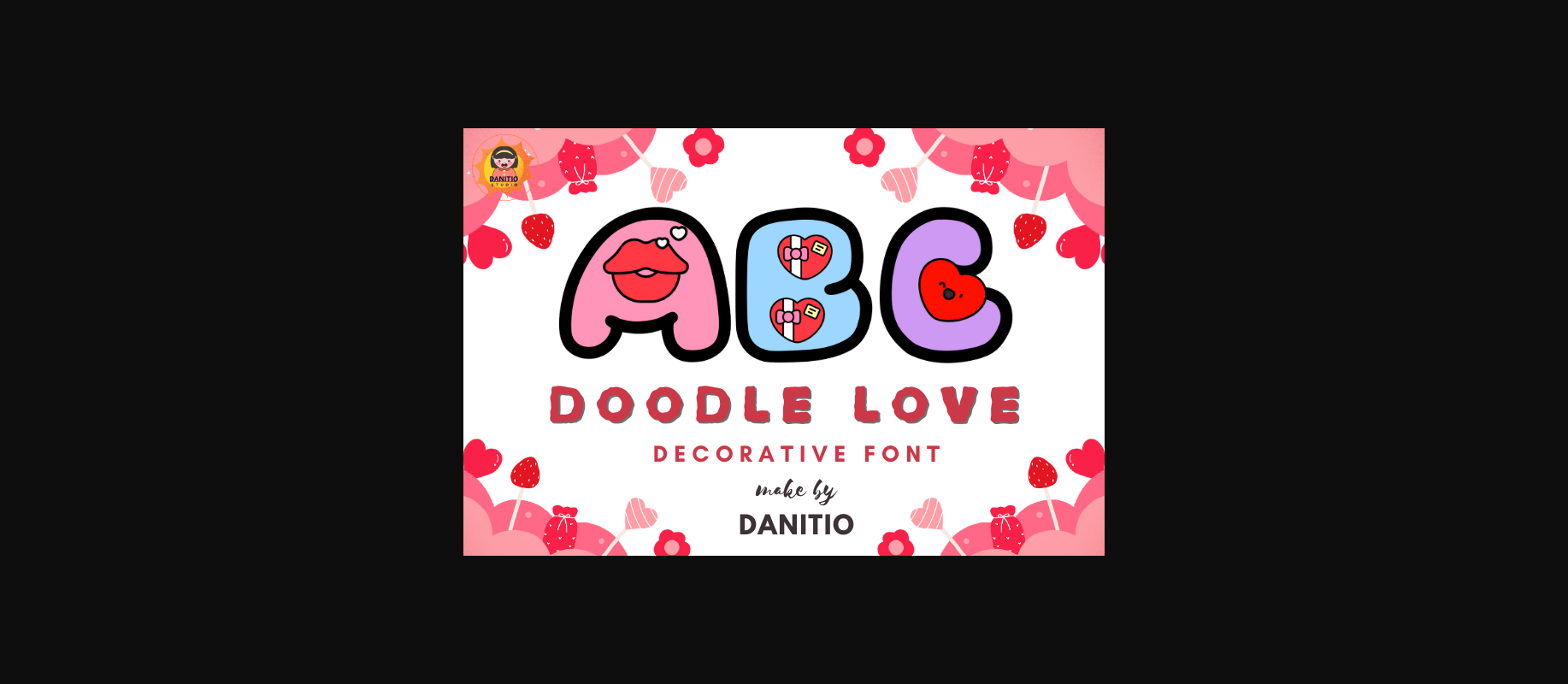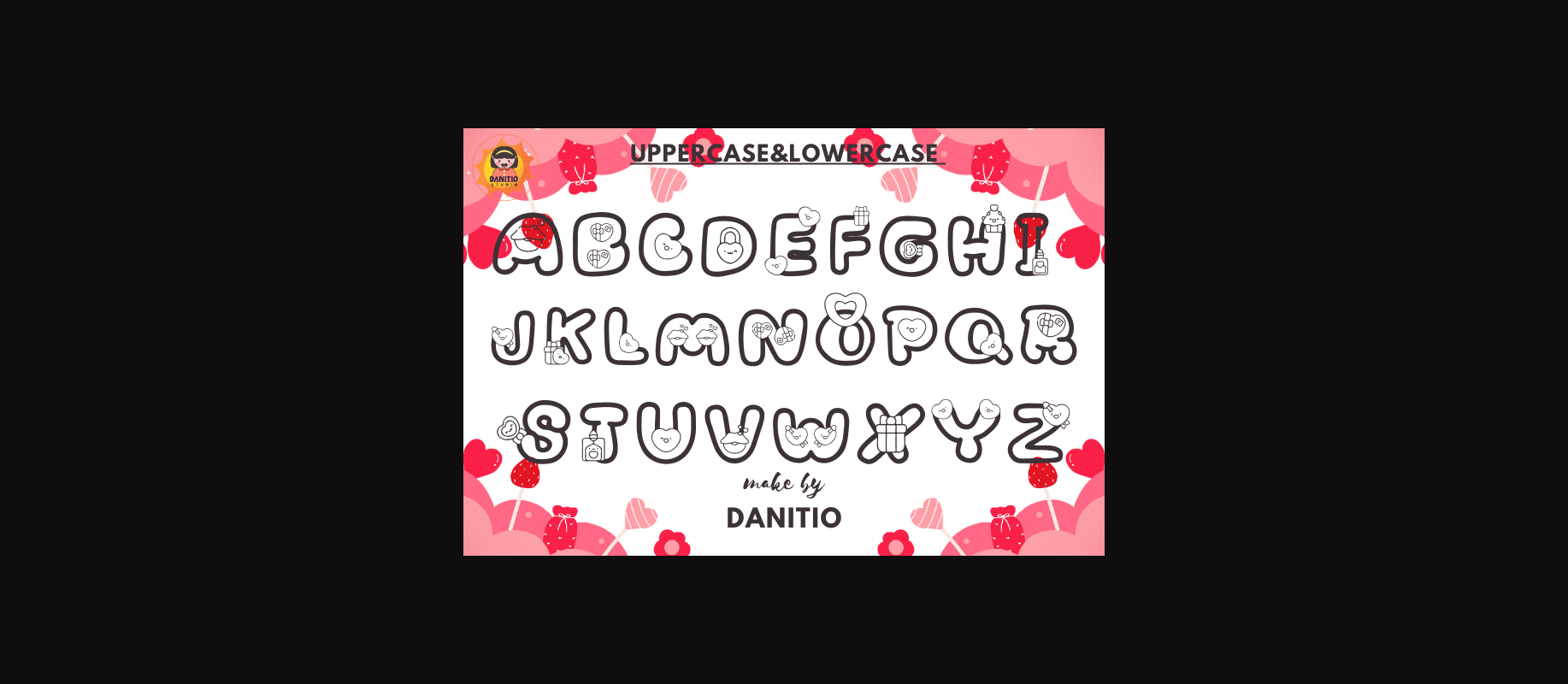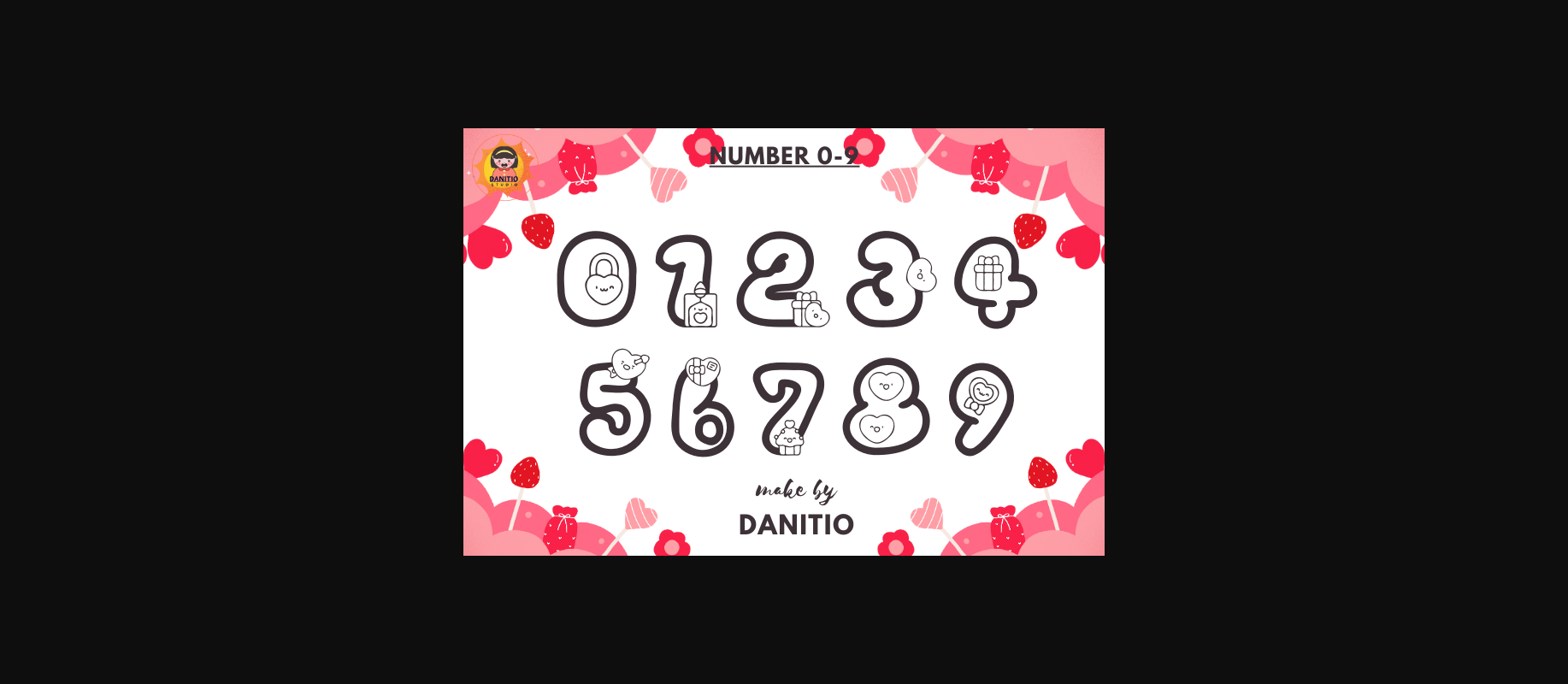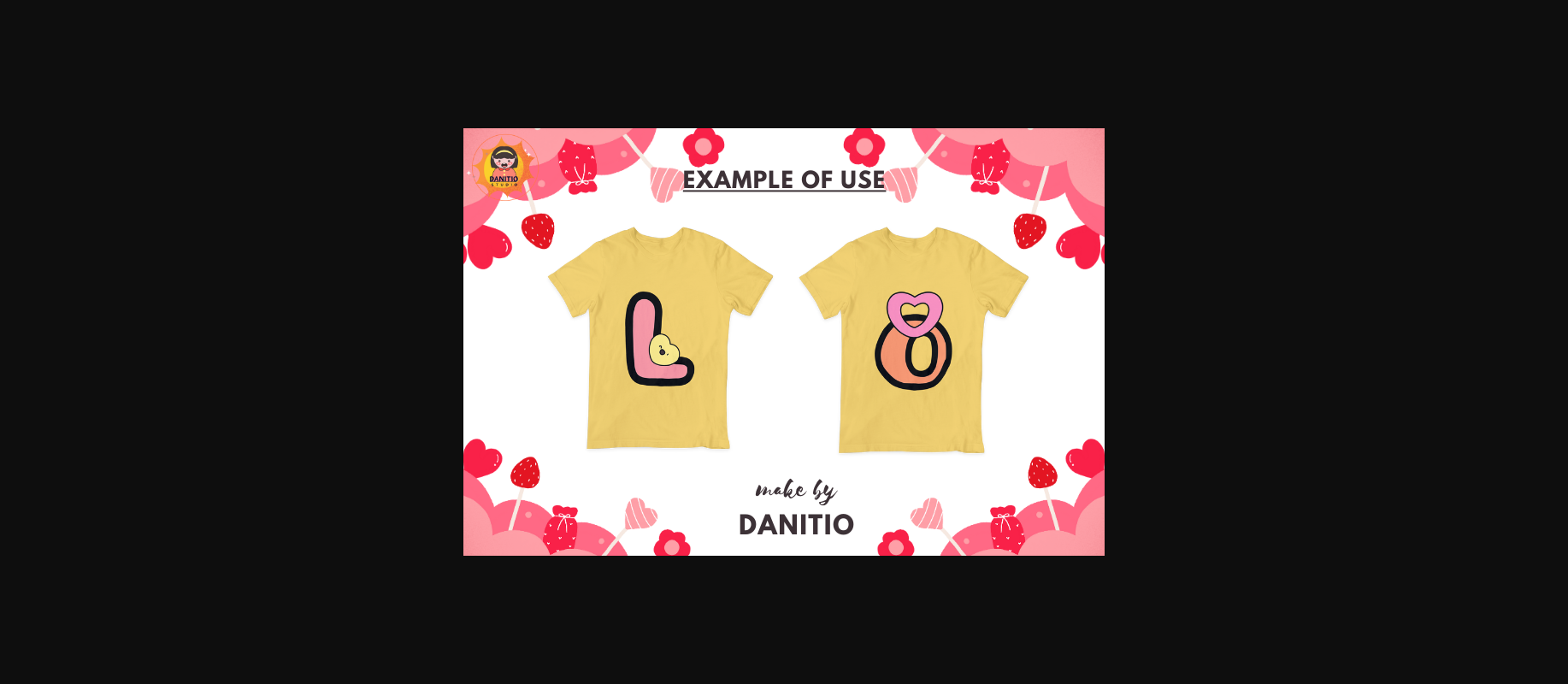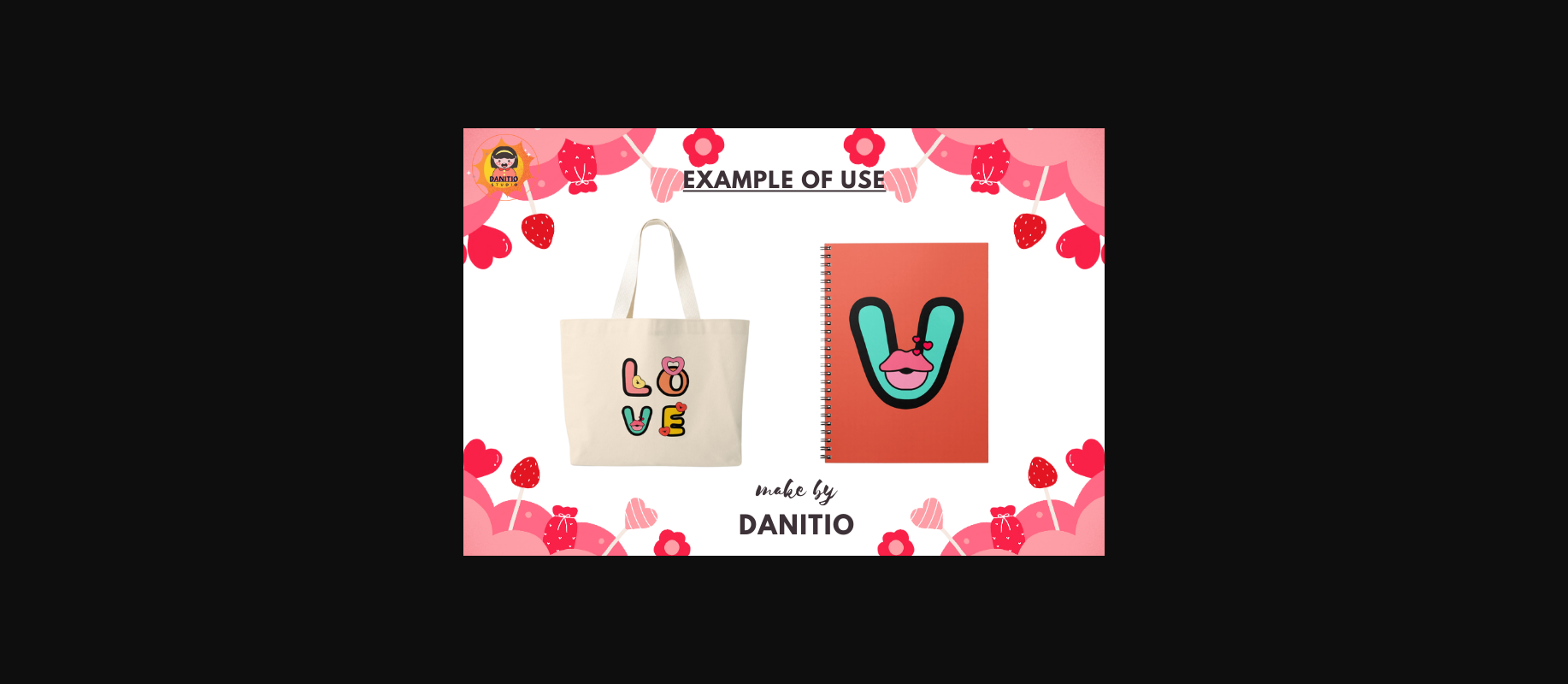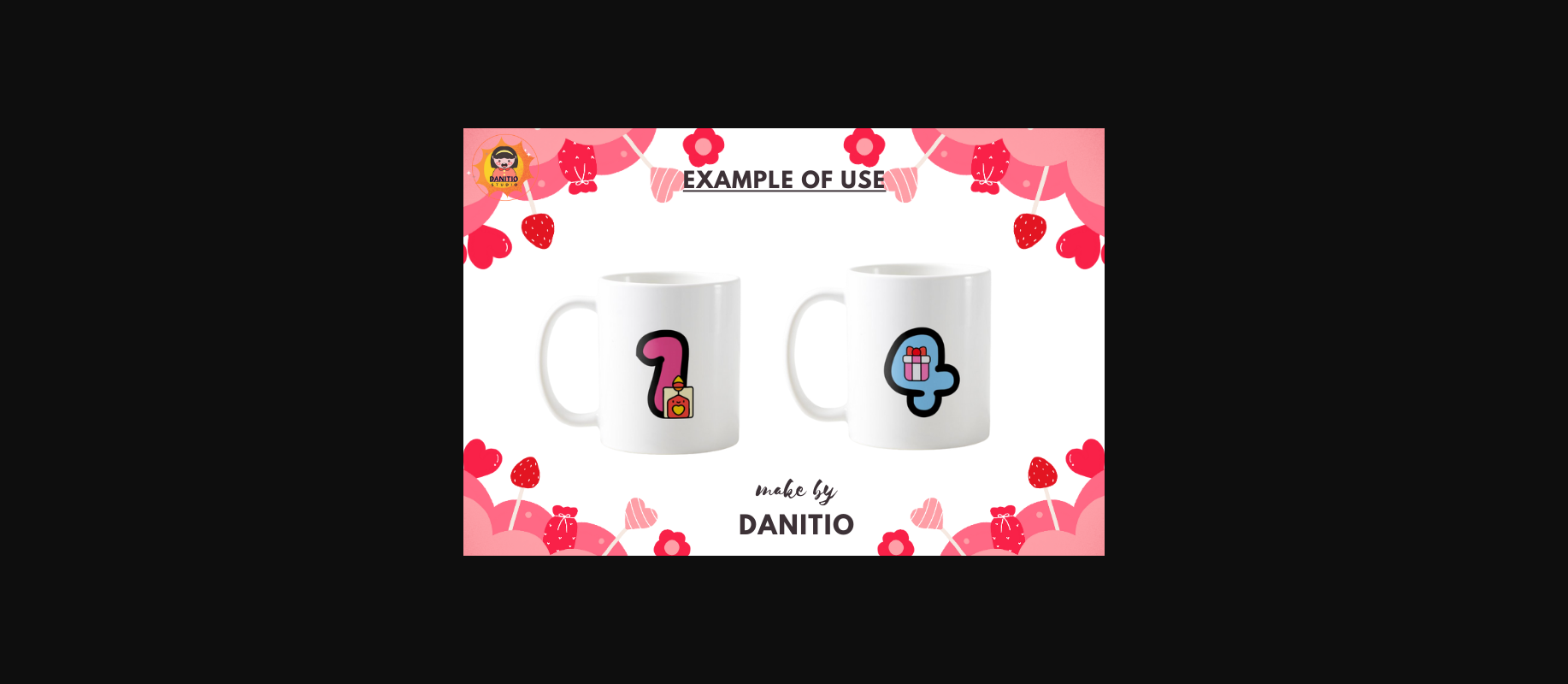
Doodle Love Font
About Doodle Love Font
Doodle Love is a cute and friendly decorative font that infuses designs with whimsical charm. Each letter is adorned with delightful doodles, capturing the essence of love and playfulness. Ideal for projects seeking a heartwarming and creative touch, Doodle Love adds a delightful and personalized flair to your creative expressions.